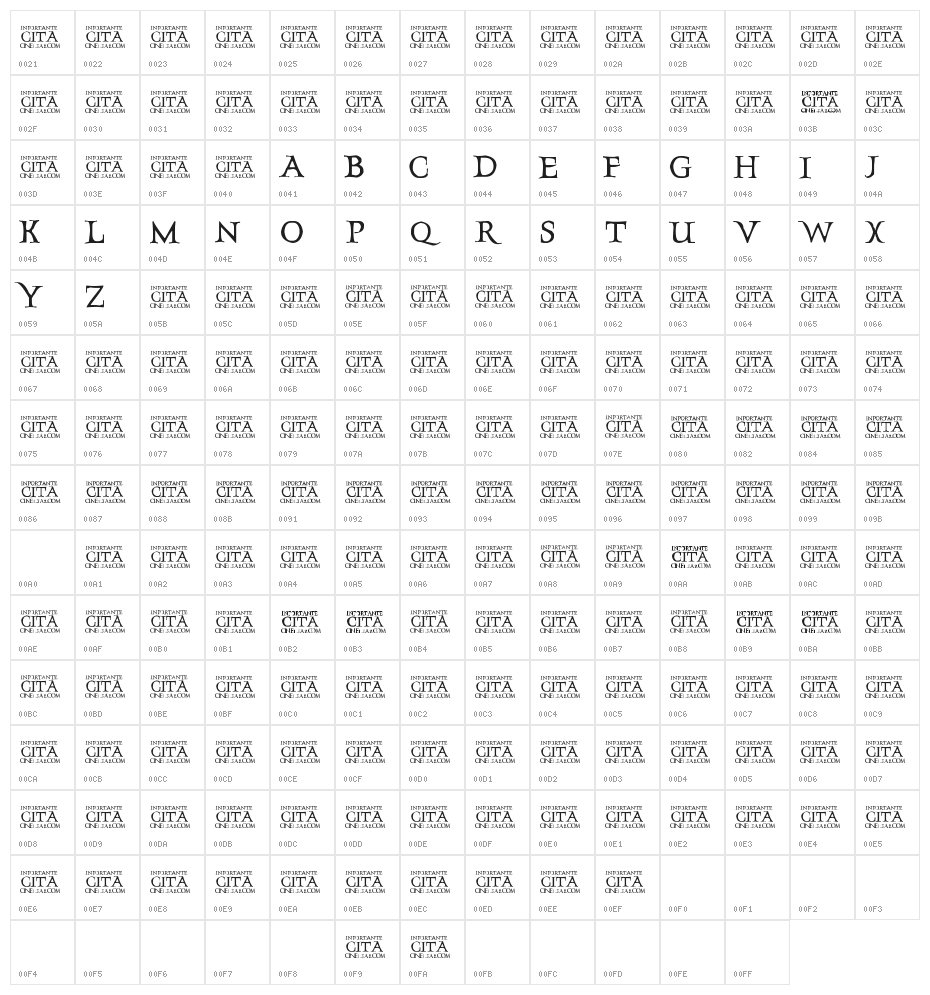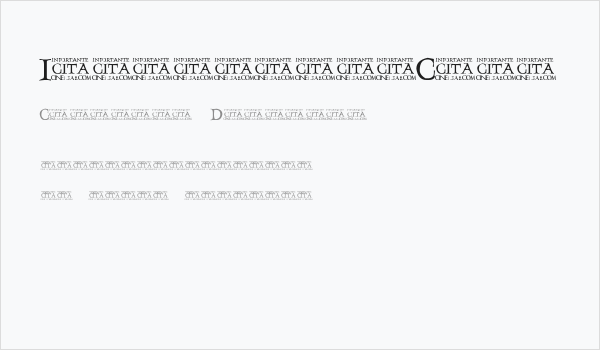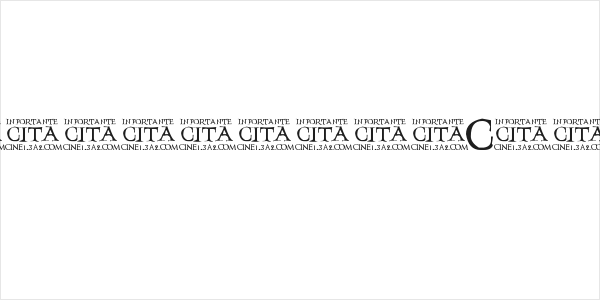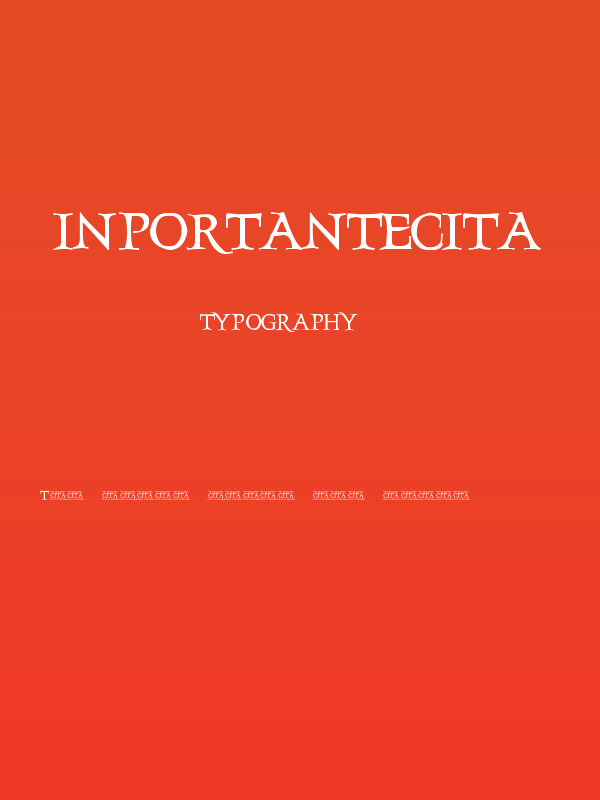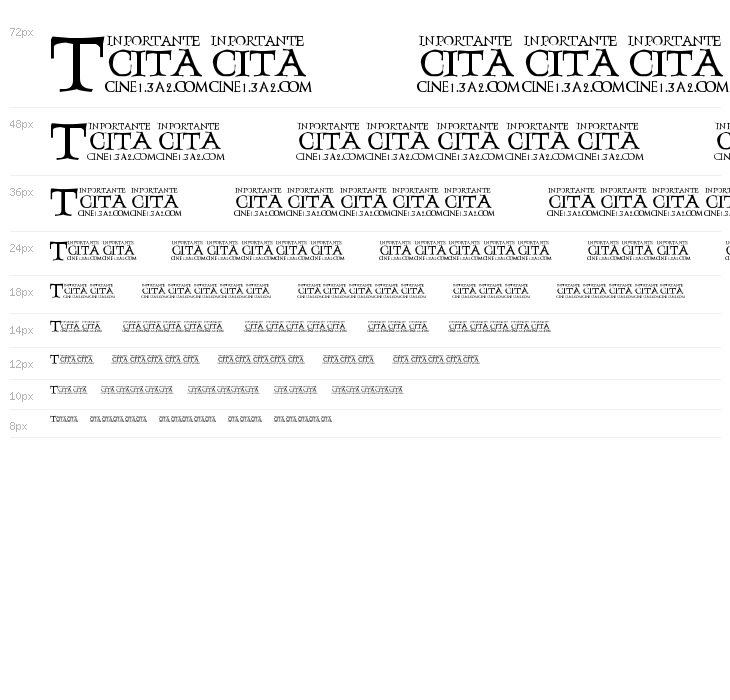
InportanteCita Font
InportanteCita Description
This font exhibits a classic and elegant style with a strong presence. The uppercase letters are bold and slightly condensed, featuring sharp serifs that give a sense of formality and tradition. The lowercase letters maintain a consistent style, with a slightly more delicate appearance. The numerals are clear and well-proportioned, matching the overall aesthetic of the font. Special characters are designed to complement the letters, maintaining the same serif style. The font's design is suitable for creating a sophisticated and timeless look, making it ideal for formal documents, invitations, and branding that requires a touch of elegance.
| Proposed Projects | Ideal for formal invitations, branding, editorial design, and classic-themed projects. |